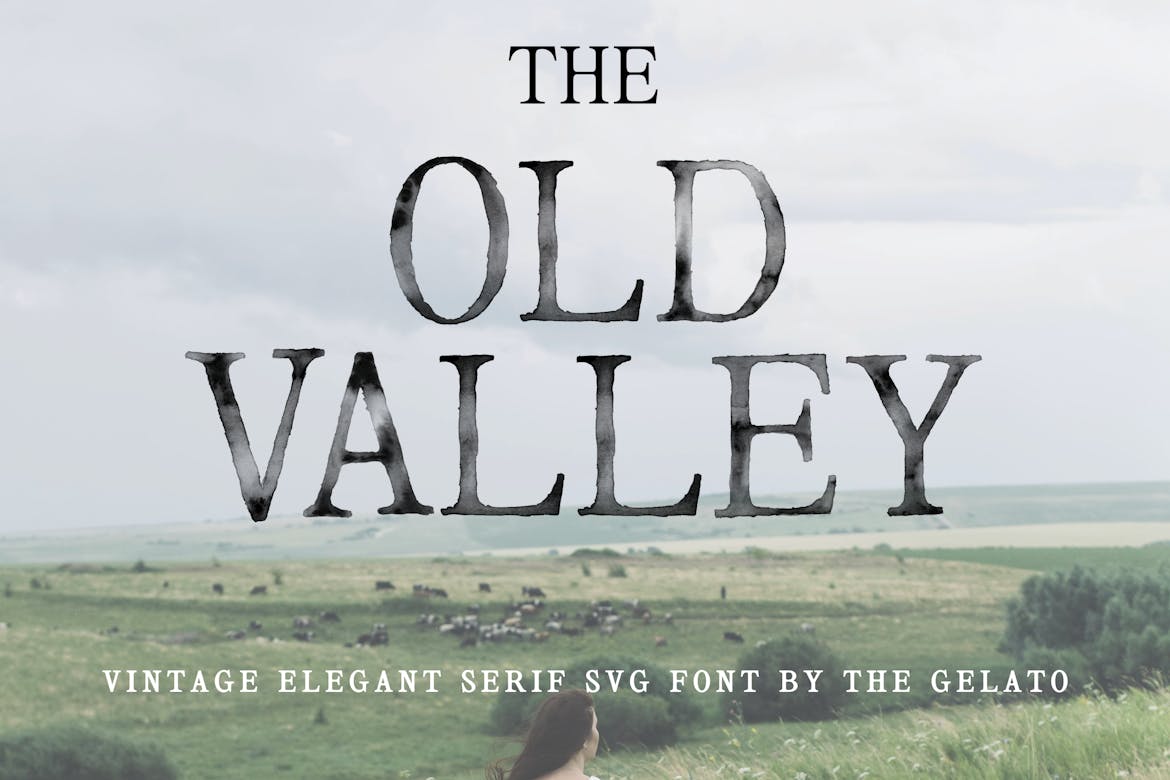
The Old Valley Elegant Serif Watercolor SVG Font
The Old Valley Elegant Serif Watercolor SVG Font flourishes in romantic wedding invitations, artistic greeting cards, vintage botanical illustrations, watercolor art exhibitions, elegant stationery designs, countryside retreat branding, artisanal craft packaging, heritage garden signage, nostalgic memoir covers, rustic farmhouse decorations, pastoral event materials, and handcrafted product labels where timeless elegance meets artistic watercolor beauty in perfect harmony.
This enchanting typeface generates excitement through its masterful fusion of classical serif elegance with organic watercolor artistry that creates typography evoking the tranquil beauty of countryside valleys and artistic expression. The Old Valley Elegant Serif Watercolor SVG Font captures the essence of pastoral romance with its graceful serif letterforms enhanced by delicate watercolor effects that suggest hand-painted artistry and natural beauty. The font's sophisticated design approach combines traditional typographic principles with contemporary digital watercolor techniques, creating scalable vector graphics that maintain artistic authenticity while delivering technical precision. Its distinctive character reflects the timeless appeal of countryside elegance and artistic craftsmanship.
The The Old Valley Elegant Serif Watercolor SVG Font family encompasses artistic variations featuring elegant serif structures with integrated watercolor effects, multiple color palette options inspired by natural landscapes, and SVG optimization for scalable digital applications. The collection includes varying watercolor intensities, gradient treatments that mimic natural paint flow, and decorative elements such as floral watercolor accents, vintage ornaments, and pastoral illustrations. Advanced SVG features enable customizable color schemes, transparency effects, and artistic layering capabilities.
Creative professionals and wedding designers consistently choose The Old Valley Elegant Serif Watercolor SVG Font Free Download for projects requiring typography that combines classical elegance with artistic watercolor beauty. This remarkable typeface excels in applications where emotional resonance and artistic sophistication are essential for creating memorable experiences. The font's watercolor elements make it particularly effective for romantic occasions, artistic projects, and brands targeting audiences who appreciate handcrafted beauty and timeless elegance.
Whether you're designing romantic wedding materials, creating artistic stationery collections, developing countryside brand identities, or crafting nostalgic marketing campaigns, The Old Valley Elegant Serif Watercolor SVG Font delivers unmatched artistic romance. Its ability to convey elegance, natural beauty, and artistic sophistication makes it invaluable for designers seeking typography that captures the magic of pastoral landscapes and handcrafted artistry. The font's watercolor mastery ensures your designs will evoke the timeless charm and artistic beauty that define exceptional romantic and countryside-inspired typography.